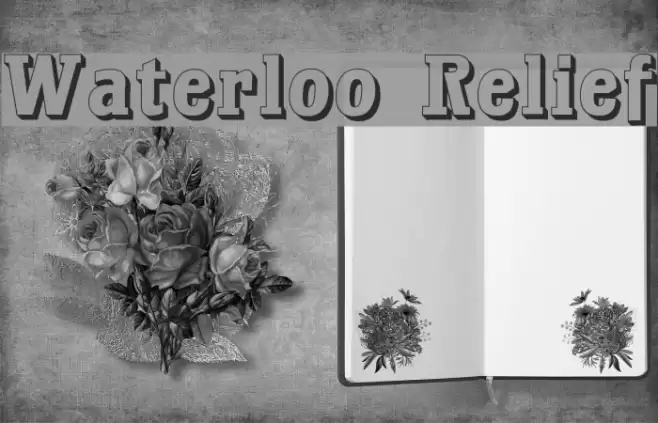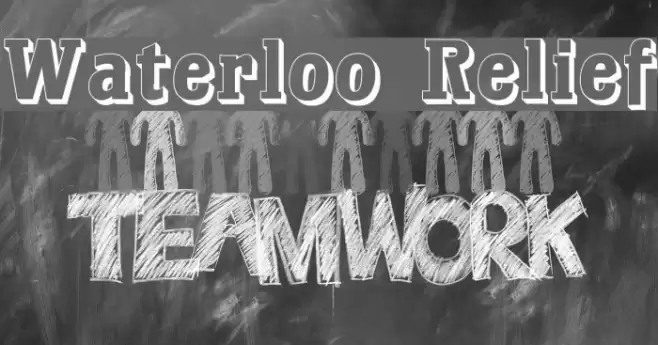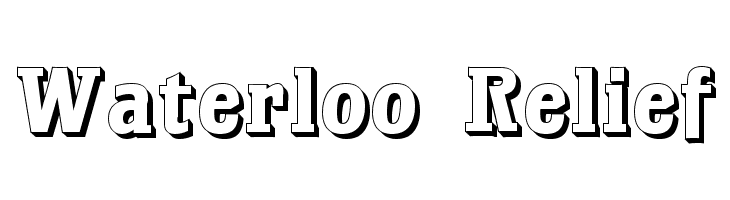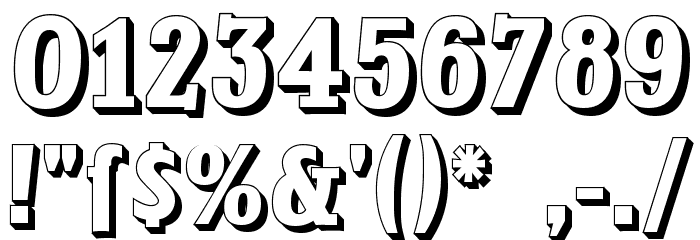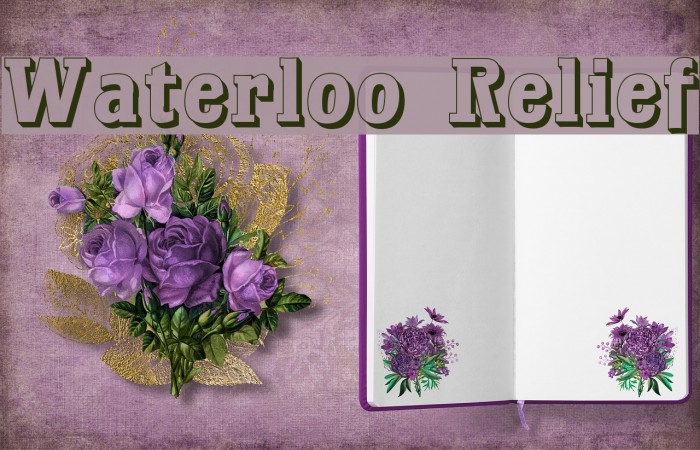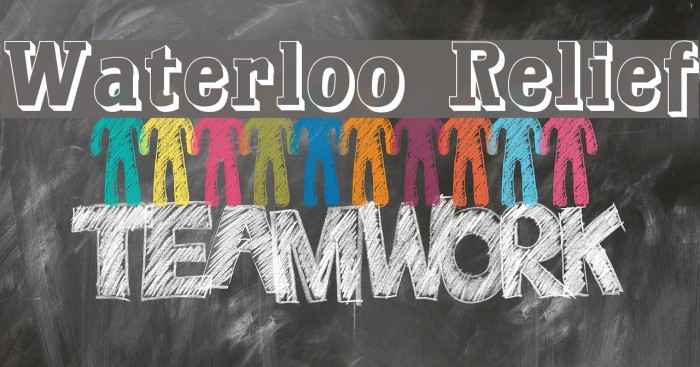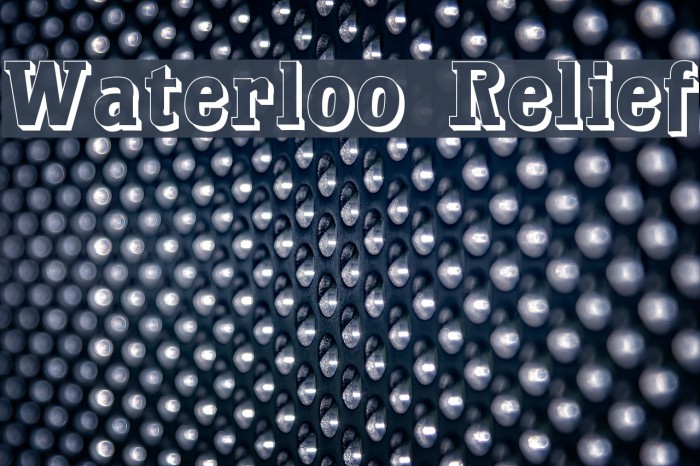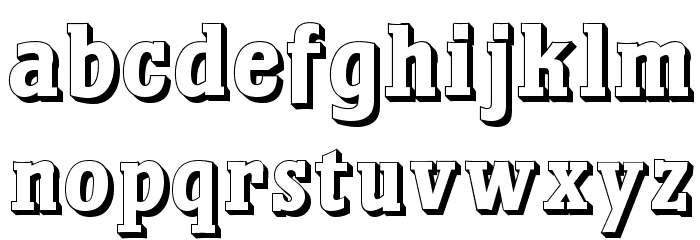
Waterloo Relief Font
Waterloo Relief Description
This font features a bold, three-dimensional effect with a shadow that gives it a striking, embossed appearance. The letters are uppercase and lowercase, with numerals and a variety of special characters. Each character is outlined with a thick black border, enhancing the relief effect. The font has a classic serif style, with distinct, sharp serifs that add to its decorative nature. The overall design is reminiscent of vintage signage or posters, making it ideal for projects that require a touch of nostalgia or a bold statement. The spacing between characters is normal, ensuring readability while maintaining its decorative appeal.
A bold, three-dimensional serif font with a vintage, embossed style from Crazy fonts.
- Proposed Projects: Ideal for vintage-themed posters, signage, book covers, and branding that requires a bold, classic look.
- Overall Style: Vintage